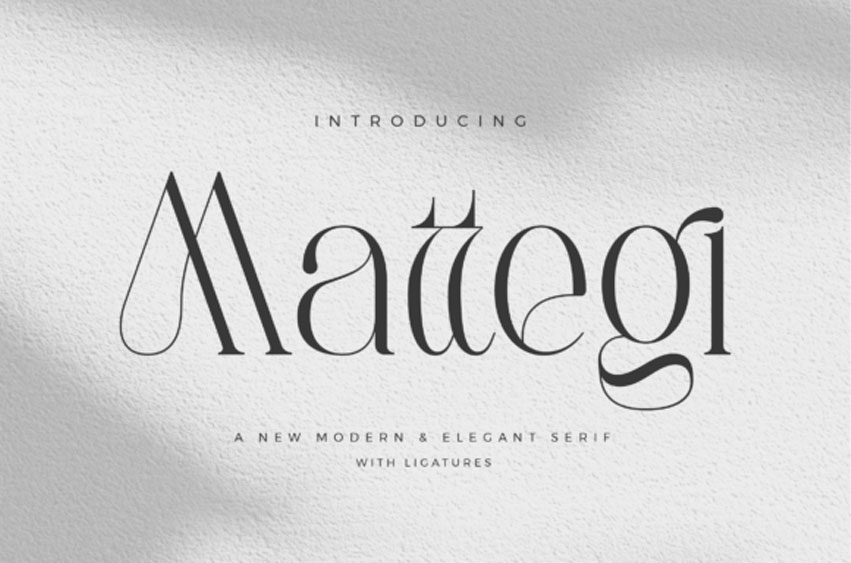
Mattegi Font
Mattegi Font Stylish Ligature Typeface, inspired by the famous minimalist logo perfect for designing templates, brochures, videos, advertising branding, logos, and more.
Every letter has a unique and beautiful touch, which will make your design come alive!